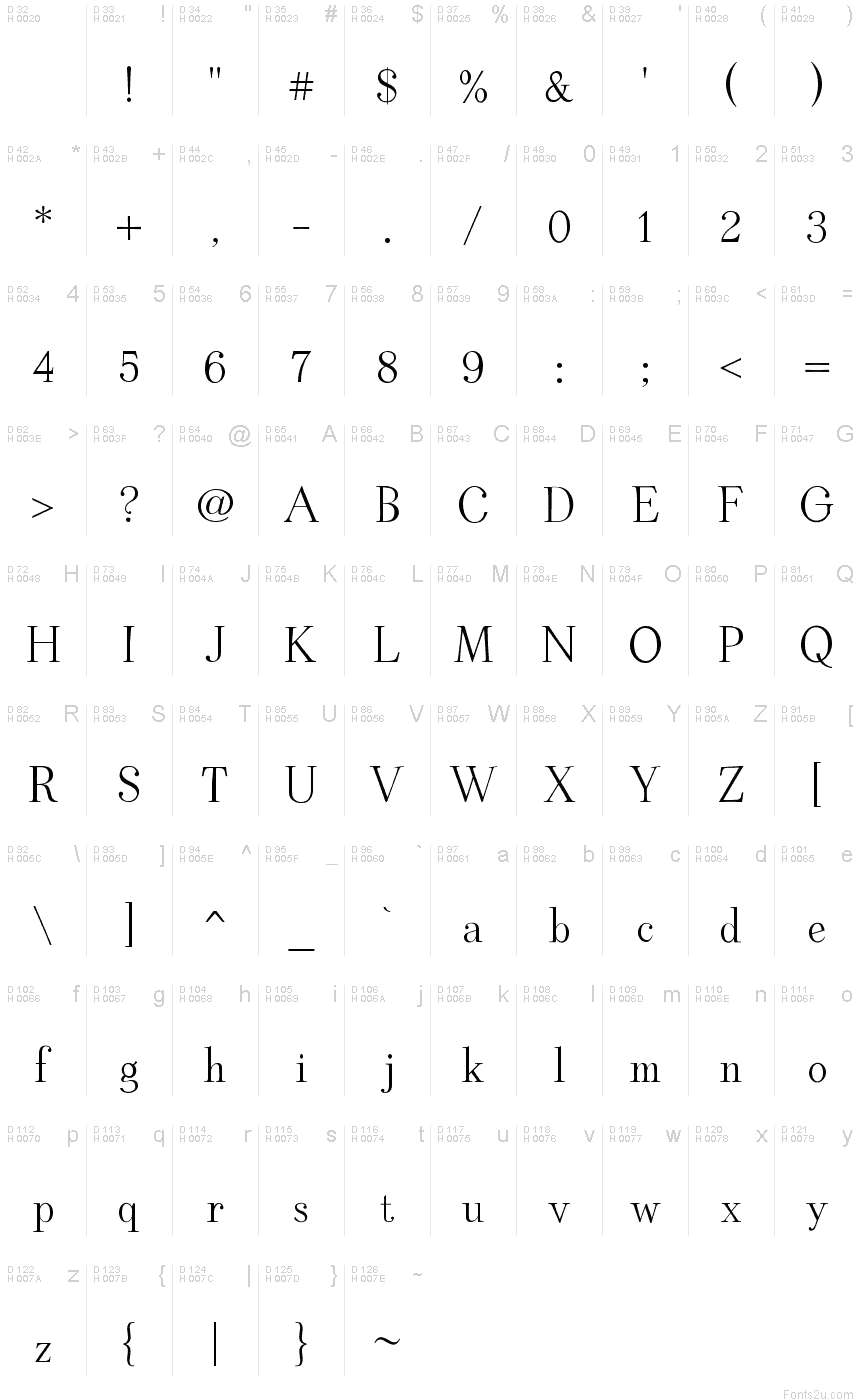
Rudolphin by Graham Meade is a free high-contrast serif with the poised elegance of classic fashion typography. Its very thin hairlines meet broad, smoothly modeled strokes, and the tall letters have open, graceful curves and a stately vertical emphasis. Fine serifs and generous proportions keep the design crisp rather than severe.
Fashion publishing is its clearest home, particularly for magazine covers and editorial features built around refined photography. The same elegance suits fragrance packaging, formal invitations, and luxury boutique branding.